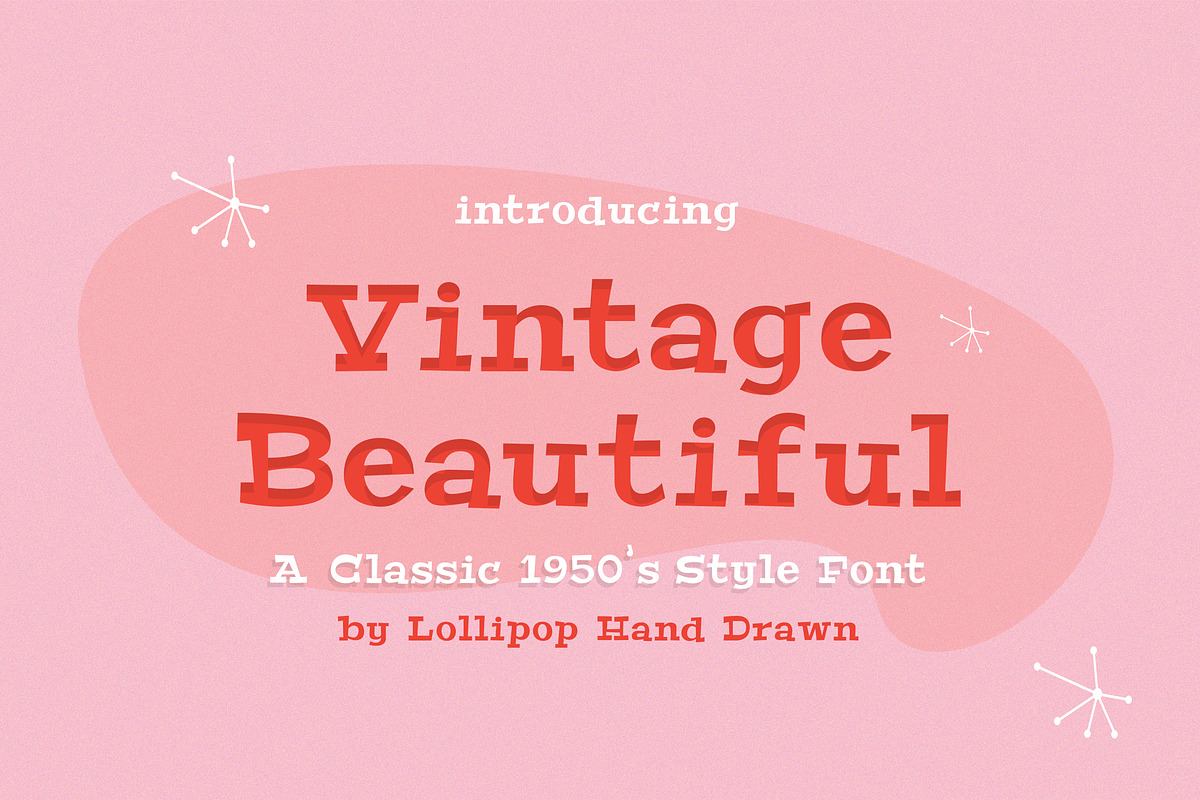
Vintage Beautiful Font Free Download
The Vintage Beautiful Font Free Download is a timeless and elegant typeface that captures the charm of classic lettering with a touch of romantic flair. Perfect for wedding invitations, antique-style branding, boutique packaging, greeting cards, and retro-themed designs, this font brings graceful sophistication to any project.
Its delicate curves and vintage-inspired details give your typography an authentic, nostalgic feel while still being highly readable. The font includes uppercase and lowercase letters, alternates, ligatures, punctuation, and multilingual support—ensuring both style and versatility.